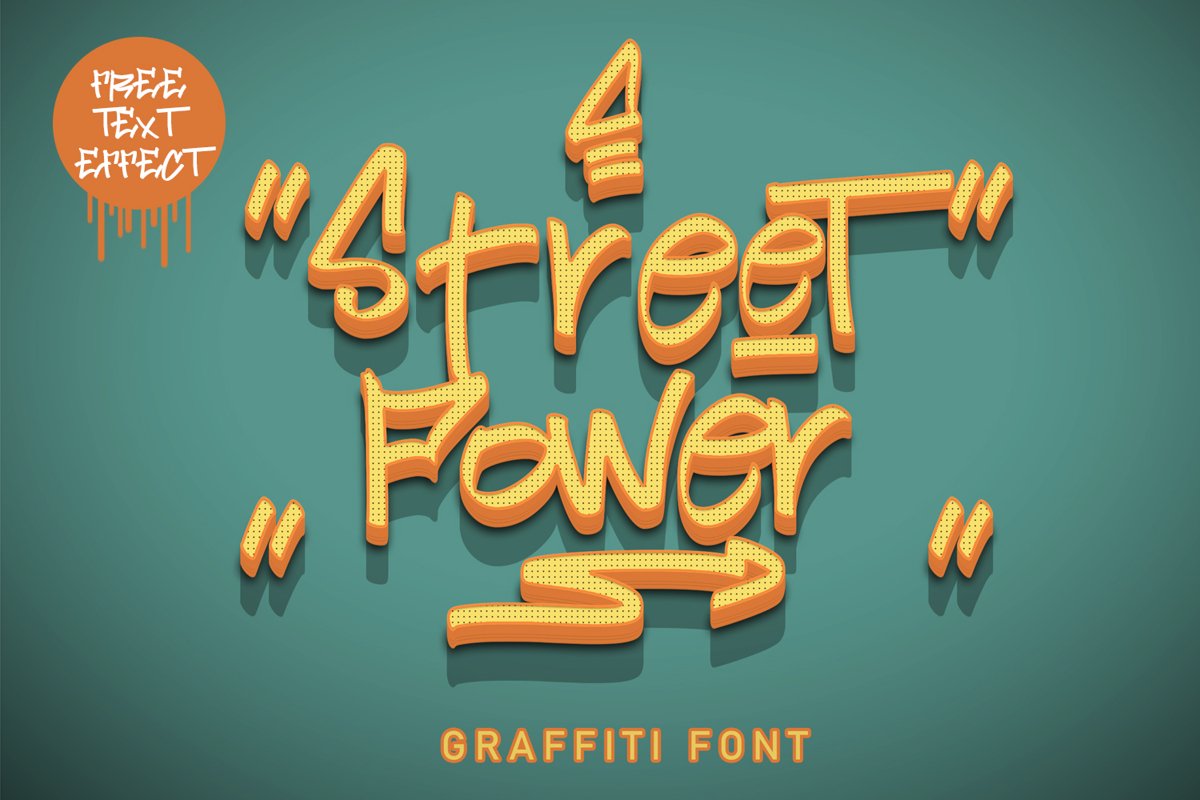
Street Power | Graffiti Font
Street Power  is a free style font that has the characteristics of street art that shows freedom and is filled with unique characters